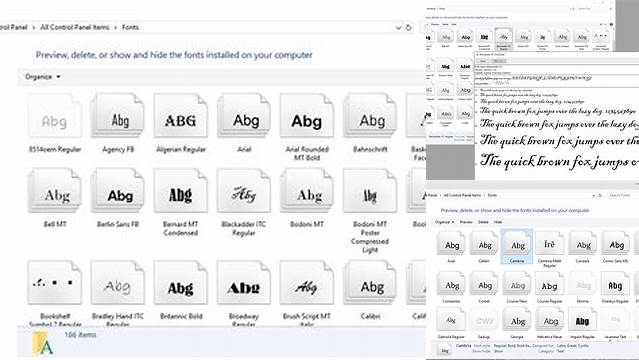
Windows 10 System Fonts: Ultimate Guide
Hey guys, let's dive into system fonts on Windows 10. Understanding and managing these fonts is super important for anyone who wants to customize their computer's look, ensure readability, or work with specific design projects. In this comprehensive guide, we'll cover everything from what system fonts are, where to find them, how to install and remove them, and even how to troubleshoot common font-related issues. Get ready to become a Windows 10 font pro! We'll explore the role these fonts play in the overall user experience, influencing everything from the text you see in your web browser to the menus and labels in your favorite applications. We'll also discuss best practices for font management, ensuring you can maintain a clean and efficient system. So, whether you're a casual user or a design professional, understanding system fonts will help you make the most out of your Windows 10 experience. We'll go over the default fonts, discuss how to install new fonts, and how to deal with font conflicts or problems. So, let's get started and unlock the secrets of Windows 10 fonts!
What are System Fonts and Why Do They Matter?
System fonts in Windows 10 are the fonts that the operating system uses to display text throughout its interface. This includes things like menu titles, window titles, and text within applications that are not explicitly using a font specified by the application itself. These fonts are fundamental to the user experience because they determine how readable and visually appealing the interface is. When you open any program on your computer, you will see text, such as the file name, edit, view, and help, at the top, which are displayed using system fonts. This is why they are so crucial for accessibility. If you have visual impairments, you can adjust system fonts to be more readable. This ensures that you can navigate your computer efficiently and enjoy a comfortable and user-friendly experience. The choice of system fonts affects everything from the size and spacing of text to its overall style. This can impact how long you can spend staring at the screen before your eyes get tired. You might have noticed that when you change your system fonts, the entire look and feel of your Windows 10 interface changes. Different fonts can convey different moods and create different aesthetic experiences, which makes it really important to choose ones that you enjoy. Choosing the right fonts also plays a role in enhancing productivity. Using clear and legible fonts can reduce eye strain and improve your ability to focus on the task at hand. Moreover, it's good to be able to identify and manage system fonts to maintain a consistent look and feel across the user interface, ensuring a cohesive and visually pleasing experience. The default system fonts, such as Segoe UI, are designed to be easily readable at various sizes, which ensures accessibility for all users, regardless of their visual abilities or screen resolution. Ultimately, understanding and managing system fonts is vital for creating a personalized, accessible, and aesthetically pleasing Windows 10 environment.
Default System Fonts in Windows 10
Windows 10 comes with a set of default system fonts, which are carefully selected to ensure readability and a consistent look across the operating system. The most prominent is Segoe UI, which is the primary font used for the Windows interface. It's designed to be clear and legible at various sizes, making it a versatile choice for various screen resolutions and user preferences. Segoe UI is used for everything from the Start menu to the settings menus, ensuring a consistent look and feel throughout the system. Other important default fonts include Arial, Times New Roman, and Courier New. Arial is often used as a substitute for Segoe UI and is a widely recognized sans-serif font suitable for general-purpose use. Times New Roman is a classic serif font that's perfect for long-form text, while Courier New is a monospace font that's ideal for programming and other text-based applications where consistency is important. Knowing these default fonts is a great way to troubleshoot any display problems. These fonts are available and are designed to work together, ensuring that the user interface remains visually appealing and functional. They're the foundation of how you see information on your computer. Besides the fonts, Windows 10 also includes a range of other fonts, which are included for different purposes, such as web design and document creation. Each font has its purpose. By understanding and managing these default fonts, users can make sure that their systems function correctly. Windows 10's default fonts are a mix of typefaces selected to optimize readability, ensure a consistent user experience, and cater to a wide range of applications and user needs. They help provide a cohesive and visually appealing interface.
Customizing Your Windows 10 with Fonts
So, how can you customize Windows 10 with fonts? The Windows 10 interface can be customized by changing the system fonts. To change the size and style of the text, you can go to Settings, then Personalization, then Fonts. Here, you can adjust the font sizes for various interface elements such as menu bars, message boxes, and icon labels. While you can't change every single font used by the operating system, this offers a good level of customization. This can improve the readability of the system. For applications, most programs allow you to change fonts within their settings. Go to the program settings or options to adjust the font for the user interface or documents. This level of customization gives you complete control over how text appears within your work or entertainment apps. You can also customize the font in web browsers. You can customize the font size, style, and default fonts used to display web content. This is very helpful if you have accessibility needs. To customize the fonts used by Microsoft Edge, go to settings, appearance, and customize the fonts. In Google Chrome, go to Settings, Appearance, Customize fonts, and then customize the fonts. Additionally, you can customize the fonts for specific applications. This offers you control over how text appears in various apps. By learning these customization options, you can make Windows 10 look and feel exactly as you want. You can create a user-friendly environment that reflects your personal style. You can make your computer even better. You can enhance your experience, and boost your productivity.